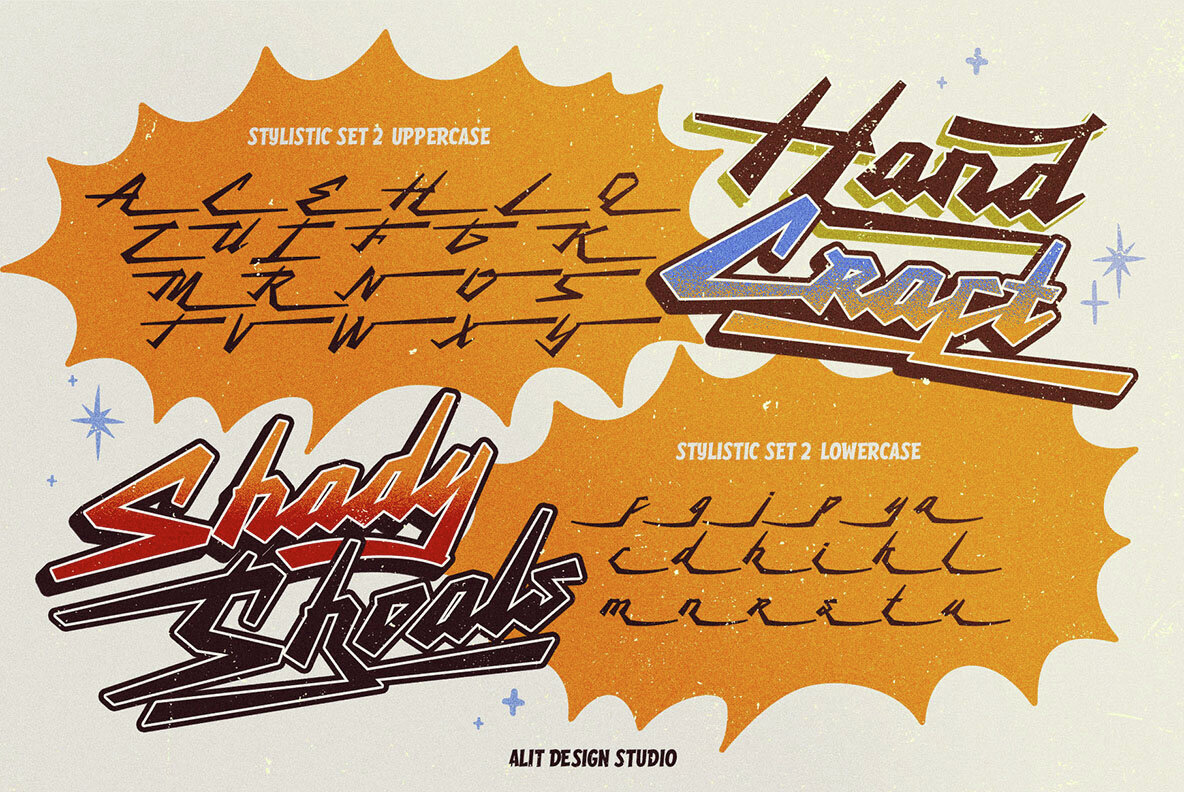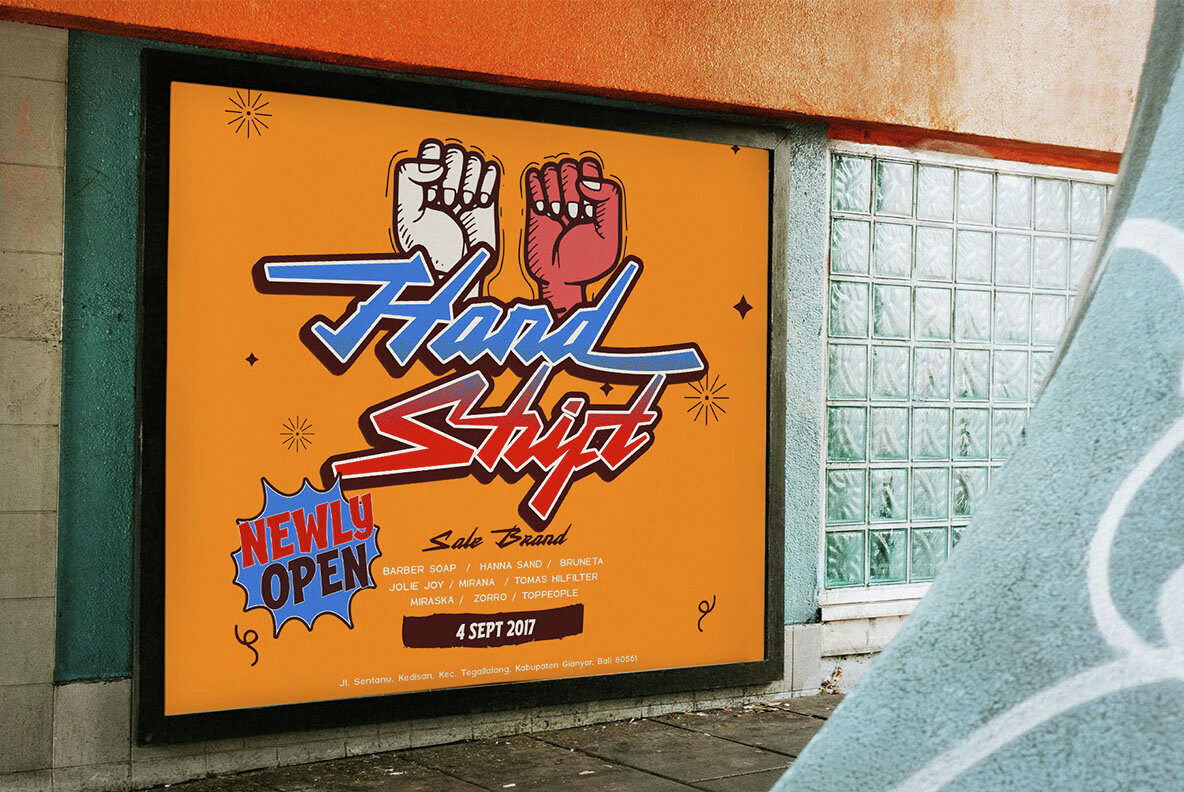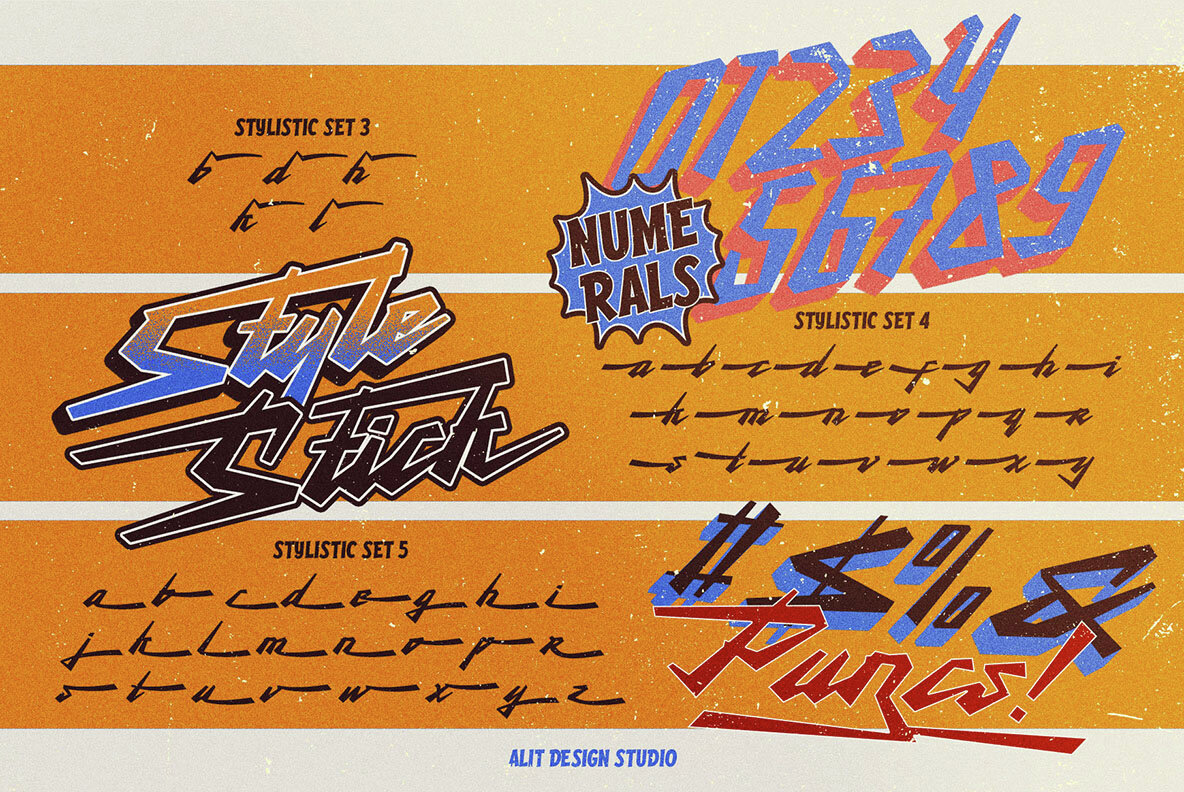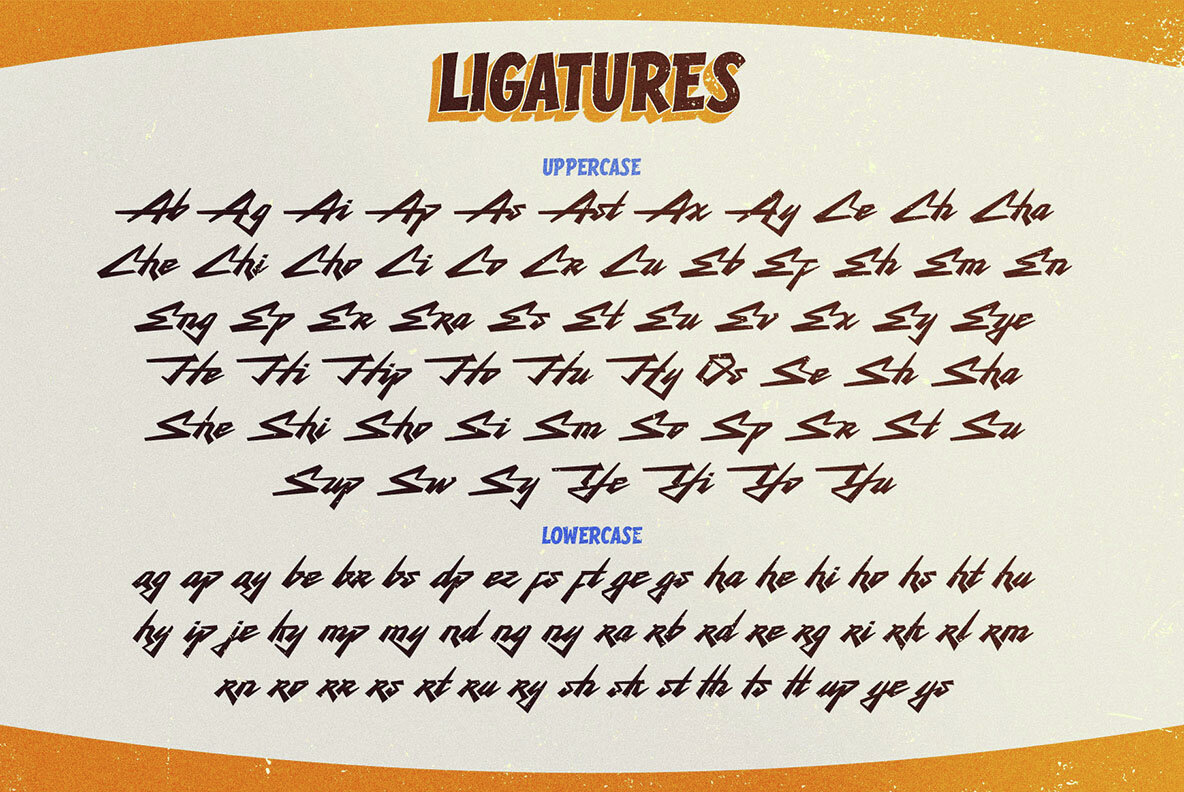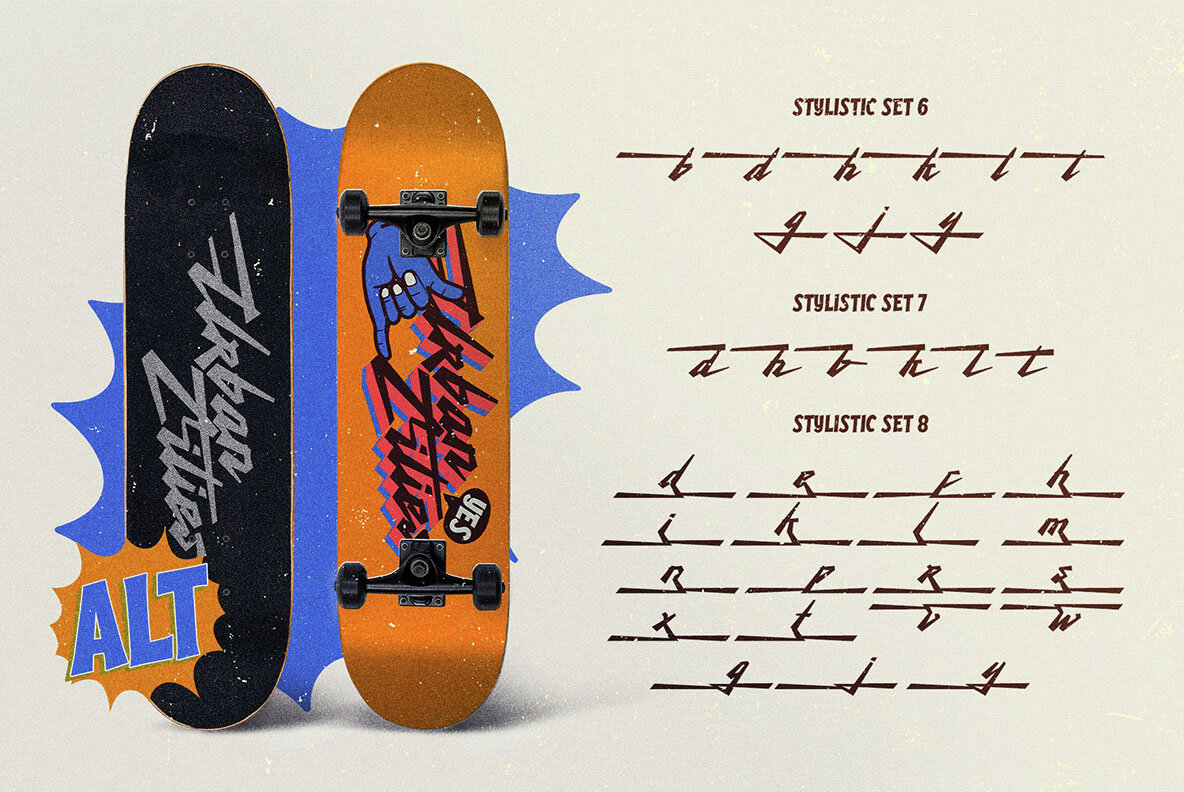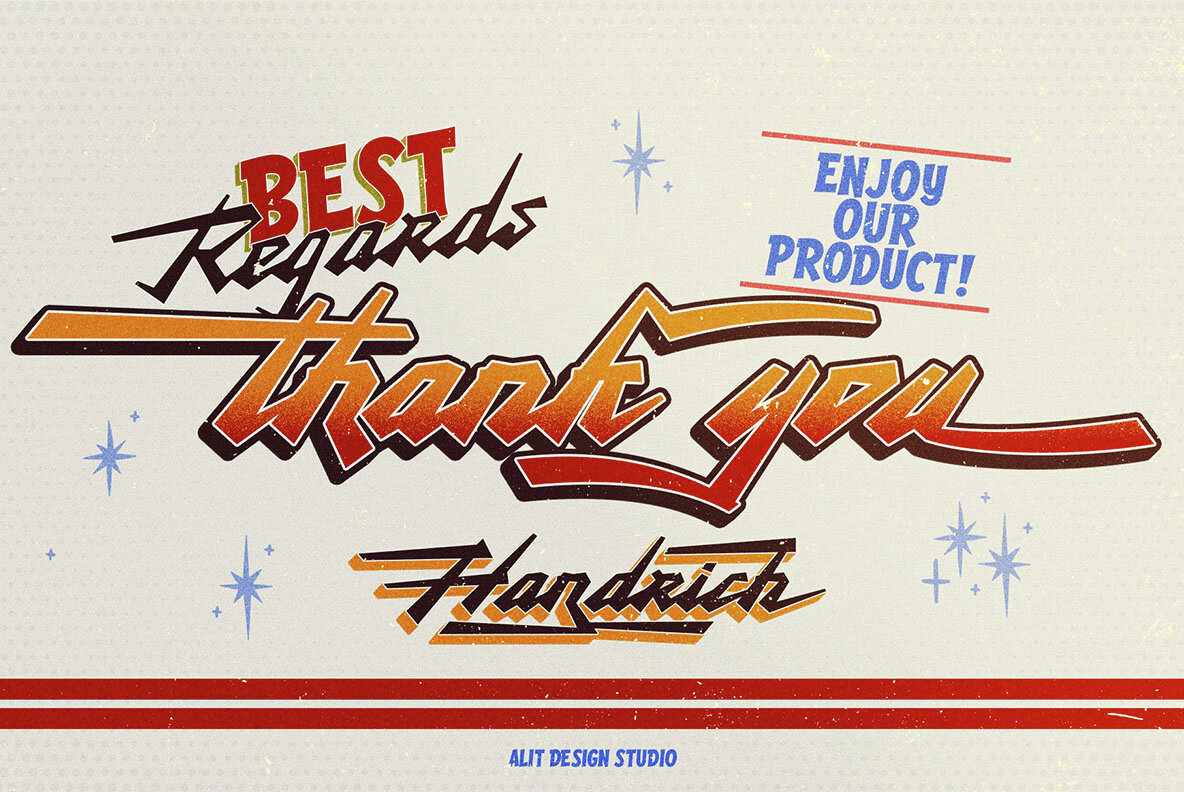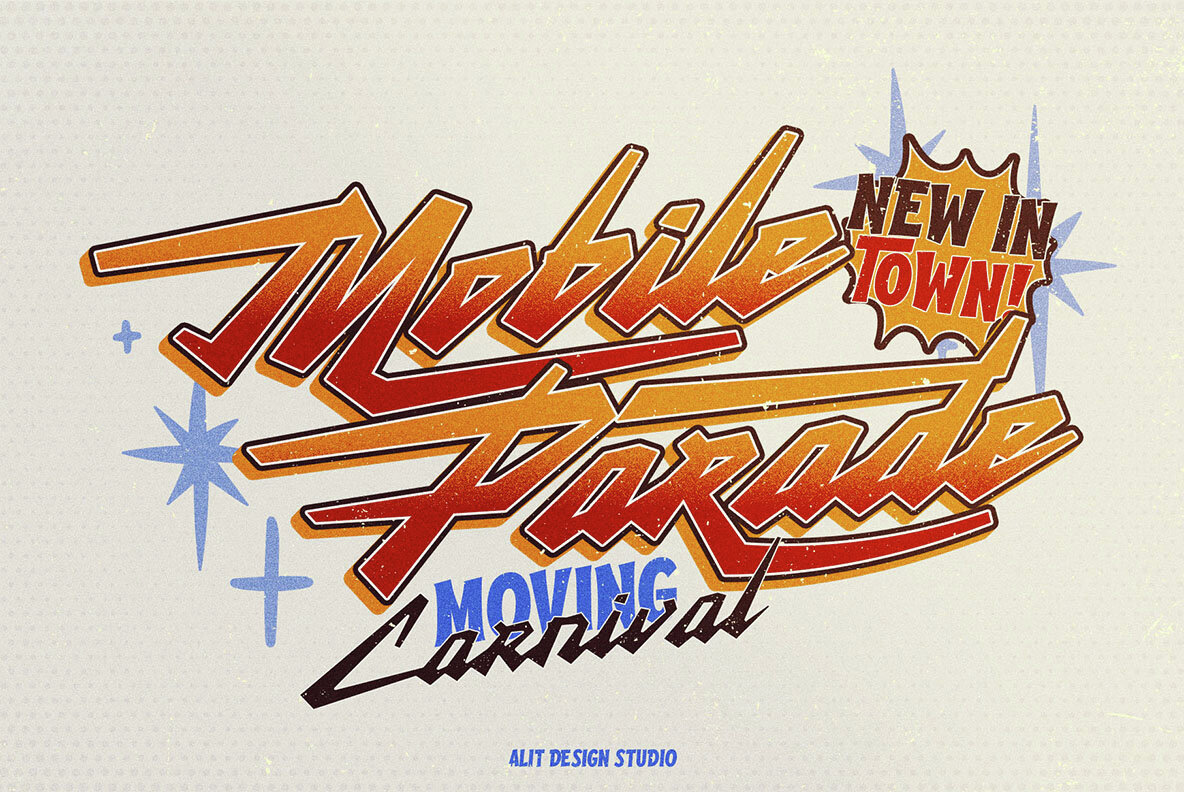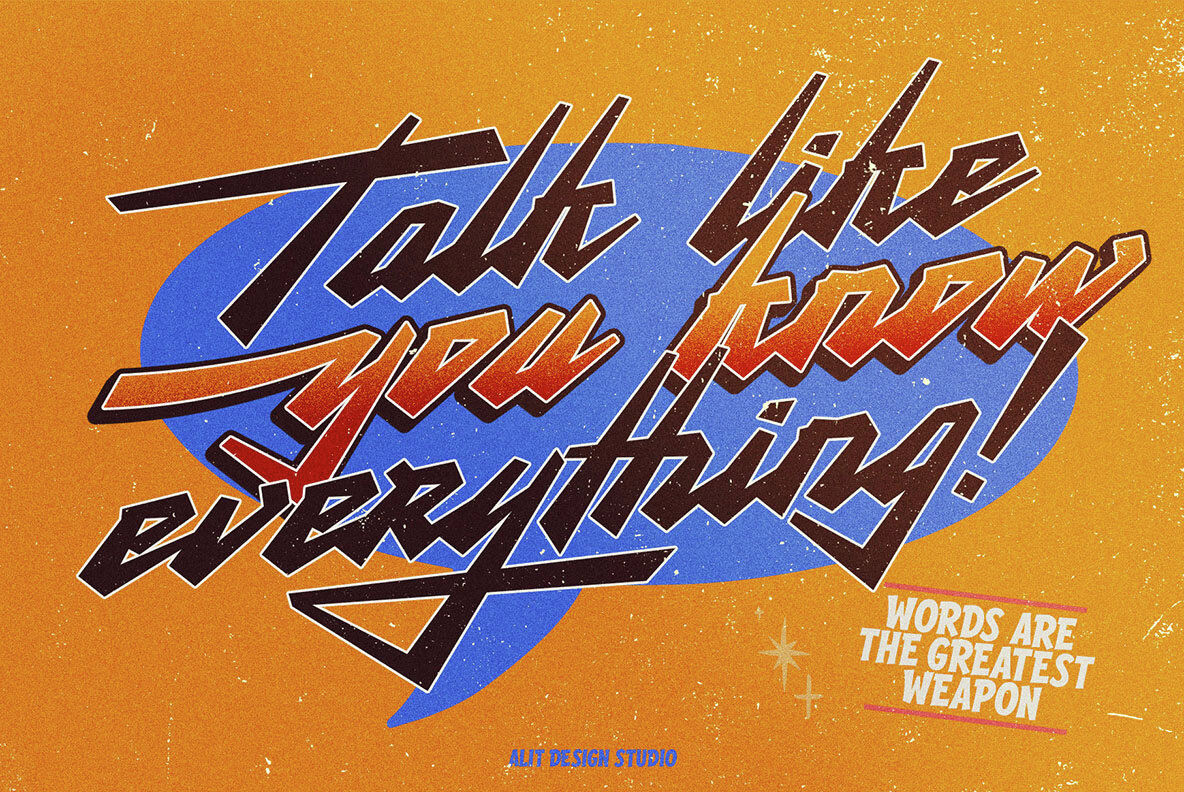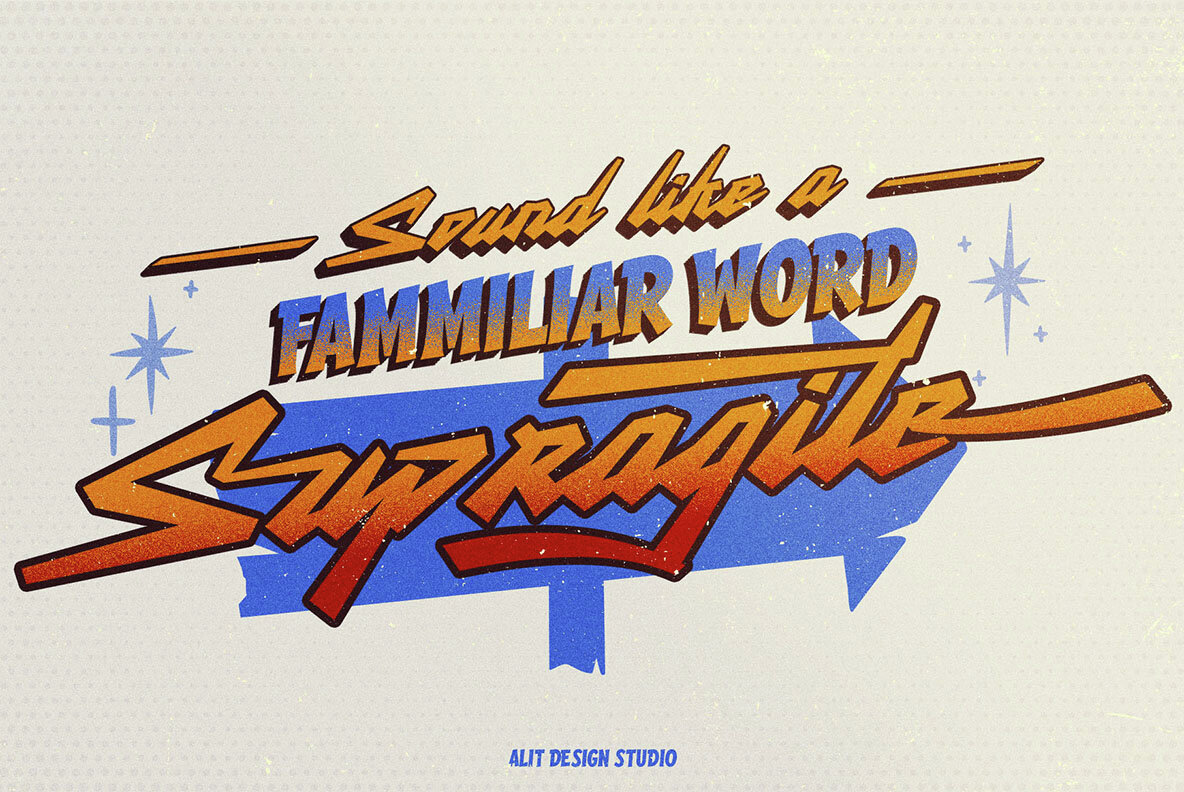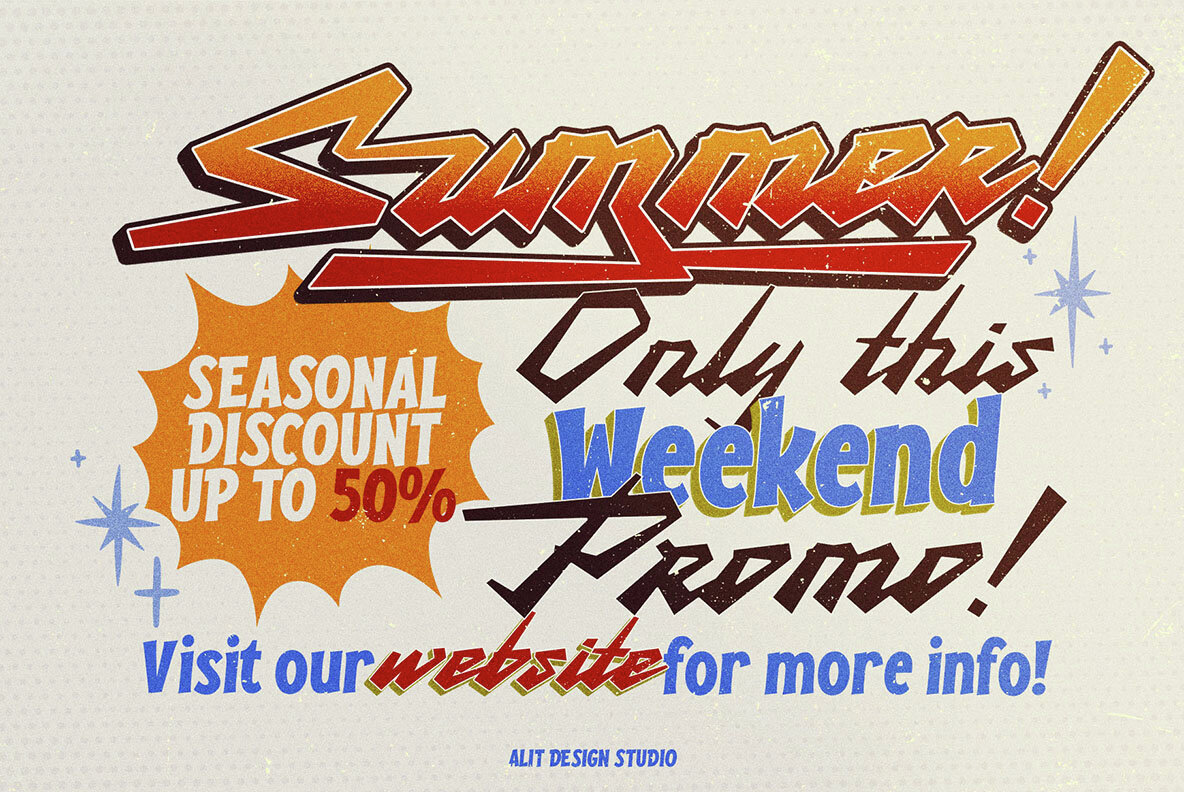
Handrich Font
Handrich Regular
Introducing the Handrich Typeface, a dynamic and expressive script font that embodies the essence of speed, strength, and precision. Handrich is designed for those who seek a typeface that exudes a bold and energetic character, perfect for making a statement. Key Features: Versatile Applications: Handrich Typeface is perfect for a wide range of applications, including: Technical Details: Get Handrich Typeface: Unleash the power of speed and strength in your designs with the Handrich Typeface. Perfect for those who need a script font that doesn't just communicate but commands attention. Transform your projects with the fierce, fast, and firm character of Handrich today.